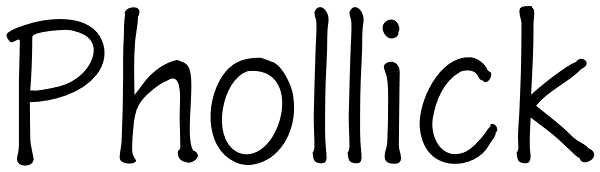
Phollick
A basic handdrawn and scanned text that could be used for scrapbooks and the like. This font is a cross between Italican Oblique and Czaristane.